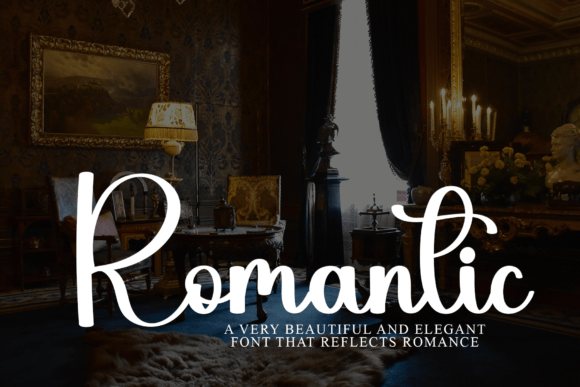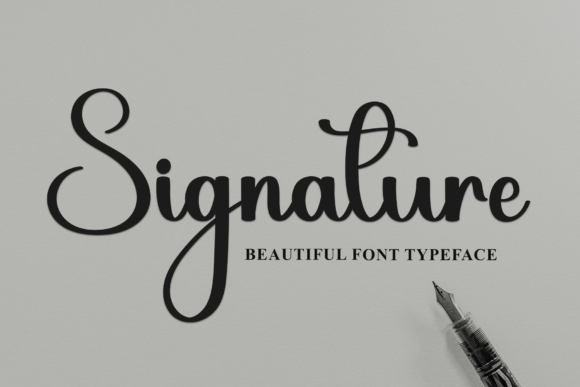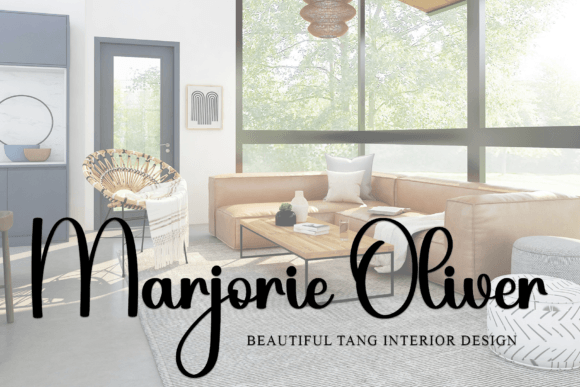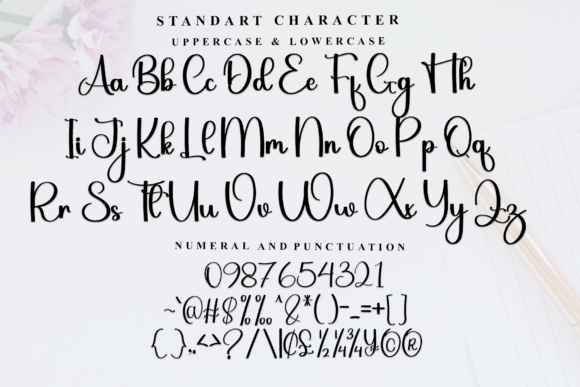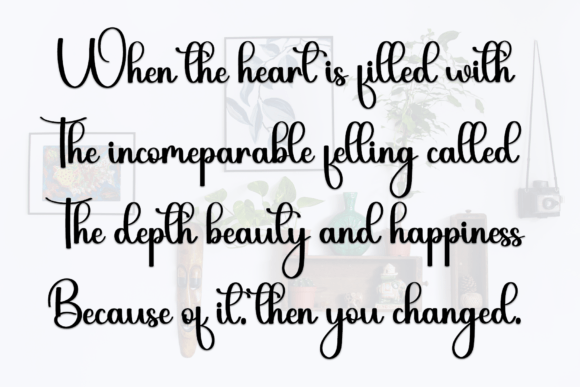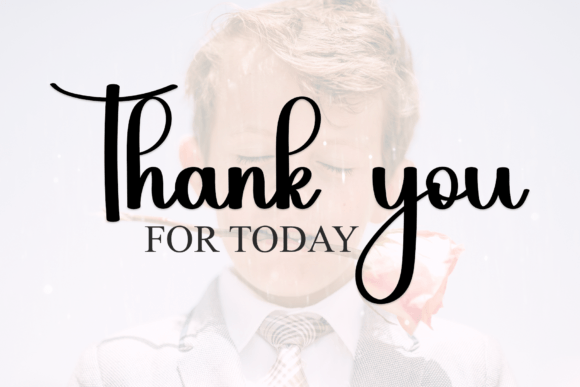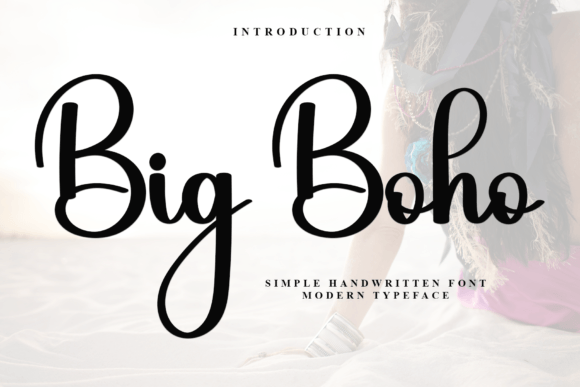
Introducing Big Boho Font: The Ultimate Choice for Designers and Crafters
Are you a designer or crafter looking for a font that can add a touch of elegance and sophistication to your projects? Look no further than Big Boho Font, a lovely and timeless handwritten font that is perfect for creating eye-catching logos, branding, and quotes.
The Unique Charm of Big Boho Font
Big Boho Font is a beautifully crafted font that boasts a unique and beautiful touch. Every letter has been carefully designed to give your designs a personal and handmade feel. The font’s elegant strokes and curves make it perfect for creating stunning logos, branding materials, and quotes that will leave a lasting impression on your audience.
What Makes Big Boho Font Stand Out?
So, what sets Big Boho Font apart from other fonts on the market? Here are just a few reasons why designers and crafters love this font:
- Unique and Beautiful Touch: Every letter in Big Boho Font has a unique and beautiful touch that will make your designs come alive.
- PUA Coded: Big Boho Font is PUA coded, which means you can access all the amazing glyphs and ligatures easily. This makes it simple to create stunning designs that showcase your creativity.
- Timeless and Versatile: Big Boho Font is a timeless and versatile font that can be used for a wide range of design projects, from logos and branding to quotes and more.
Big Boho Font is the perfect choice for designers and crafters who want to add a touch of elegance and sophistication to their projects. Whether you’re creating logos, branding materials, or quotes, this font is sure to impress. Here are just a few ways you can use Big Boho Font:
- Logos and Branding: Use Big Boho Font to create stunning logos and branding materials that will help your business stand out.
- Quotes and Posters: Create eye-catching quotes and posters that will grab the attention of your audience.
- Stationery and Packaging: Use Big Boho Font to add a touch of elegance to your stationery and packaging designs.
Tips for Using Big Boho Font
Here are a few tips for getting the most out of Big Boho Font:
- Pair with Other Fonts: Big Boho Font pairs well with other fonts, so don’t be afraid to try pairing it with other fonts to create a unique look.
- Use the Glyphs and Ligatures: Take advantage of the PUA coding in Big Boho Font by using the glyphs and ligatures to add extra flair to your designs.